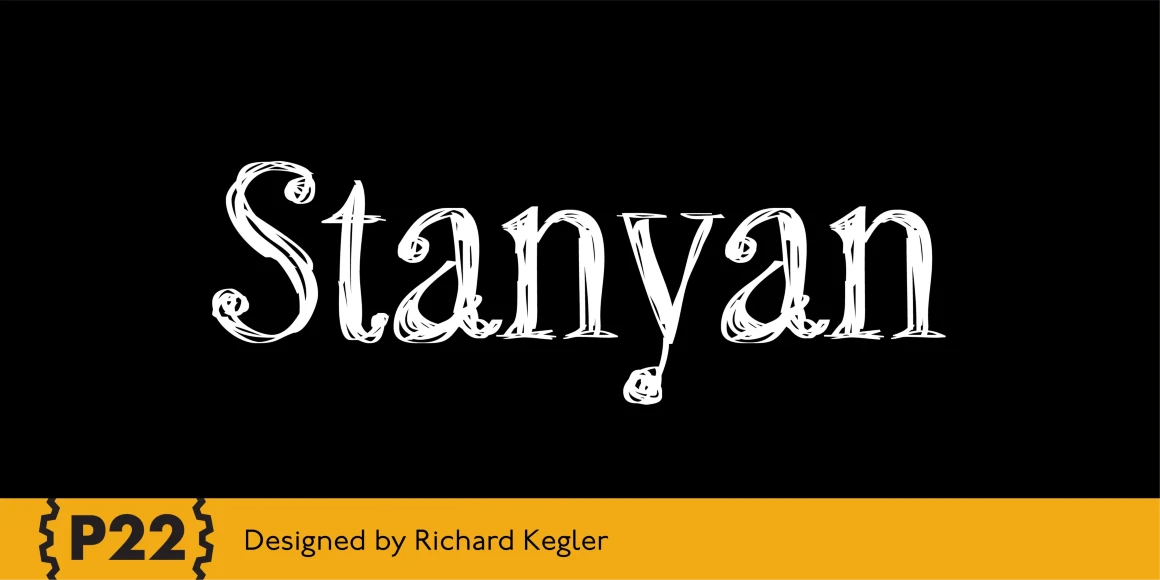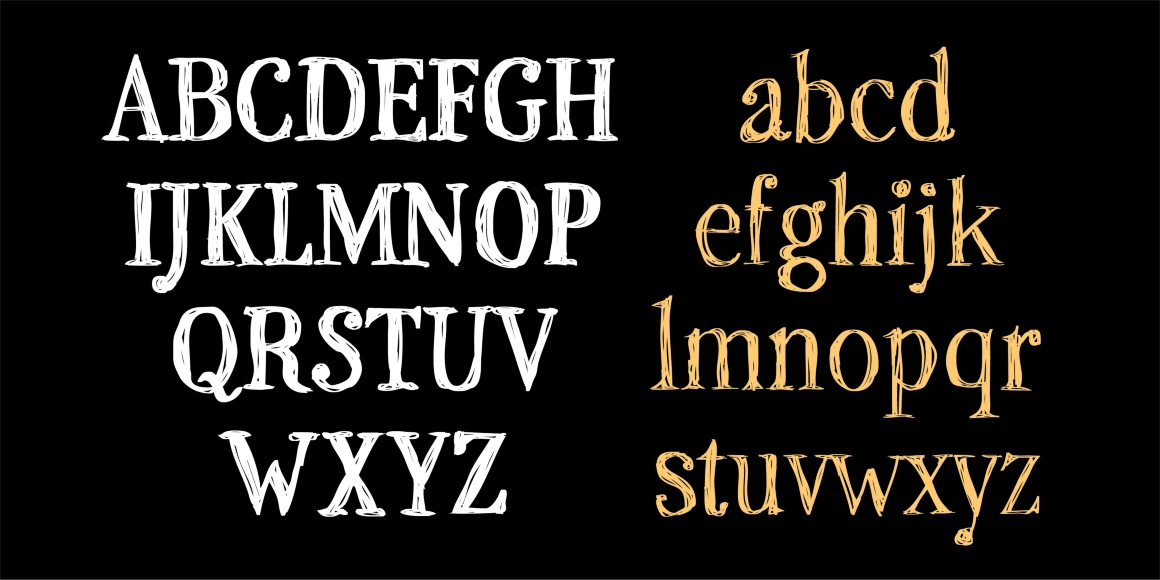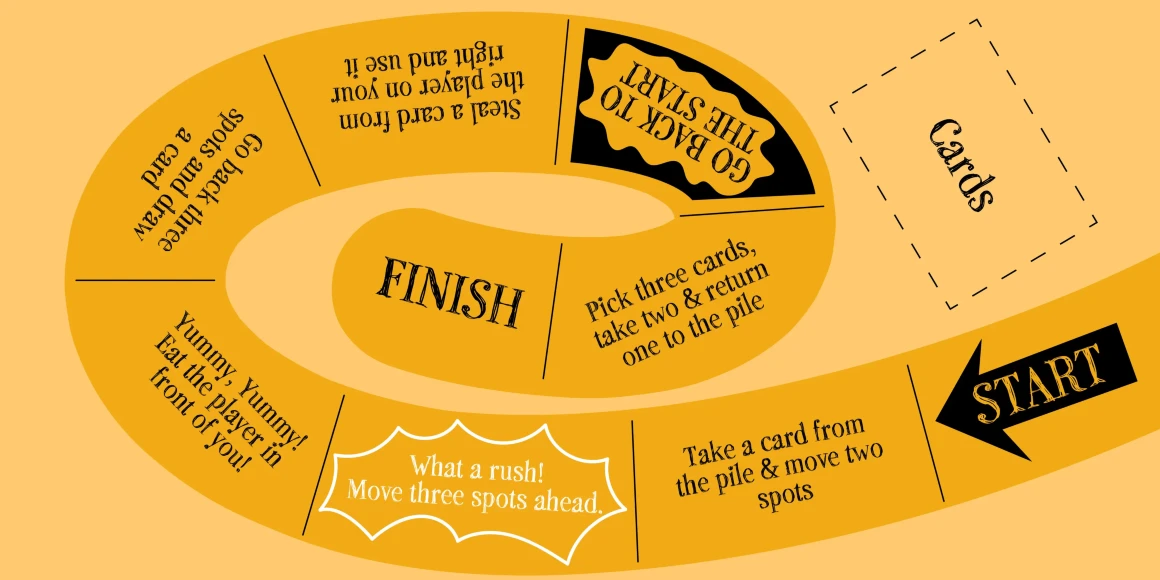
Stanyan
The Stanyan Family consists of a series of fonts produced in association with our friend and Beatsville collaborator, Mr. Rod McKuen. In 1999, to commemorate the 40th anniversary of the legendary 1959 ‘Beastville’ LP of spoken word and poetry by Rod McKuen, P22 reissued the LP on CD in an exclusive arrangement with the Stanyan Music group. In 2003, the reissue of the ‘In Search of Eros’ LP followed. Each of the CD releases contained an accompanying font created specifically for the respective project; Daddy-O Beatsville, a set of uniquely stylized illustrations depicting the American bohemian culture of the 1950’s and Stanyan Eros, an all-caps titling font that includes illustrations based on artwork from various McKuen books.
The Stanyan Set of roman-styled fonts is designed in the same style as Daddy-O Beatsville and has the unique feature of being very readable at small point sizes and also very decorative and sketchy at larger sizes. Stanyan Autumn is based upon casual Script lettering text created by Anthony Goldschmidt for the deluxe 1969 edition of the book “…and autumn came” by Rod McKuen. The casual Script lettering style works well at all sizes but especially large settings. The title lettering from this book was issued as the P22 Stanyan Eros font. Stanyan Autumn Extras includes images of autumn leaves, snippets of pastoral scenes, and various McKuen-related icons.
Designed by Richard Kegler